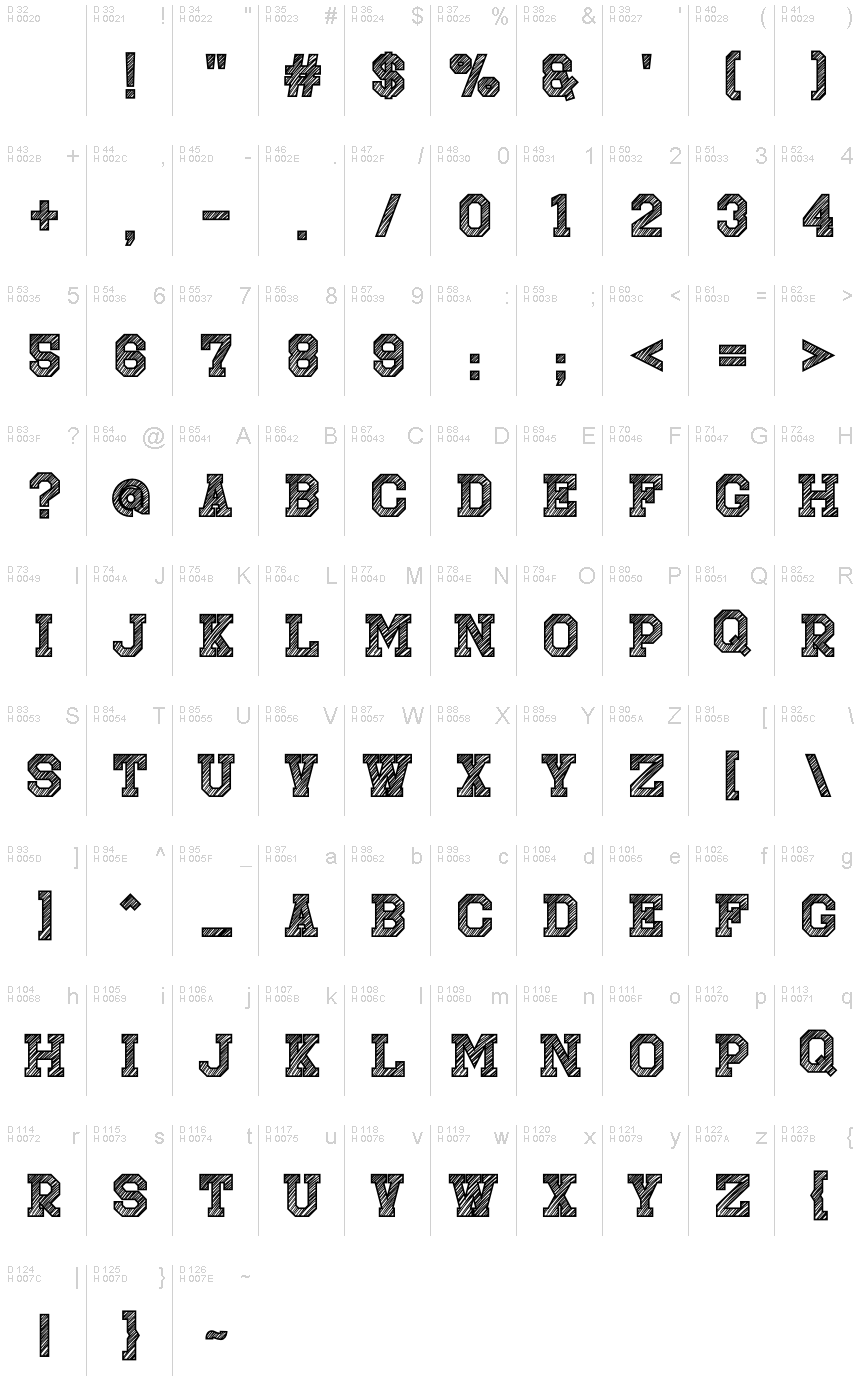
Sportfield Varsity Scrible
Sportfield Varsity Scribble font by Rvandtype is a display-type old-school font with a scribble style. The letters are slab serif in structure and made in an athletic and collegiate way. Just looking at the font makes us imagine it on your old school medal, gym sweatshirt, or football jackets with other retro colors added like white, black stripes, or any bright tones. Besides being vintage-inspired this font keys on the structured side of things making it not only impactful but also clear to read.
Every designer should get his hand on this typeface not alone but combine it with others for general use such as logotypes or branding projects. Use this free handcrafted artistic style scribbled text in web design projects (apps and websites), presentations (PowerPoint slides & keynote), copywriting designs (labels packaging & text effects) as well simple posters & cards is another great possibility!